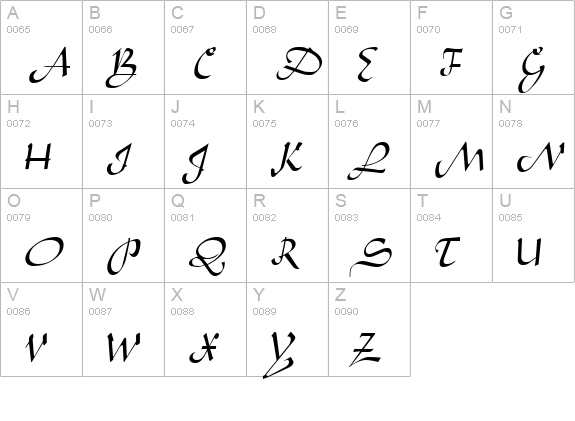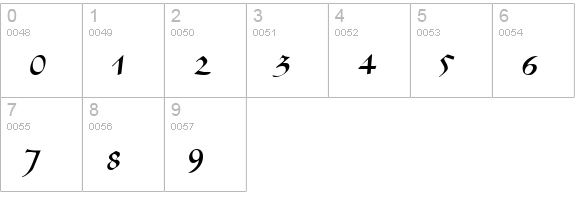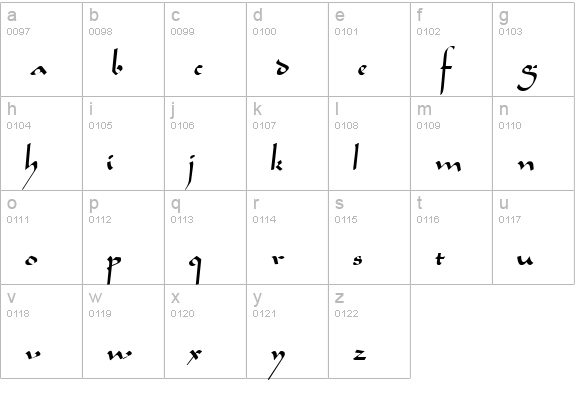
Aladdin Regular is the standard, neutral variant in the Aladdin typeface family \xE2\x80\x94 well suited to general body text, paragraphs, and standard typographic work.
Aladdin Regular font is a charming and versatile typeface that brings a touch of whimsy to any design project. With its elegant and flowing curves, this font is perfect for adding a playful and magical element to your creations. Whether you are designing invitations, posters, or branding materials, Aladdin Regular will surely captivate your audience. The best part? Aladdin Regular font is available for free download at FontsMarket.com. Embrace the enchanting appeal of this font and let your creativity soar with its endless possibilities. Add a touch of fairy-tale magic to your designs with Aladdin Regular font today!